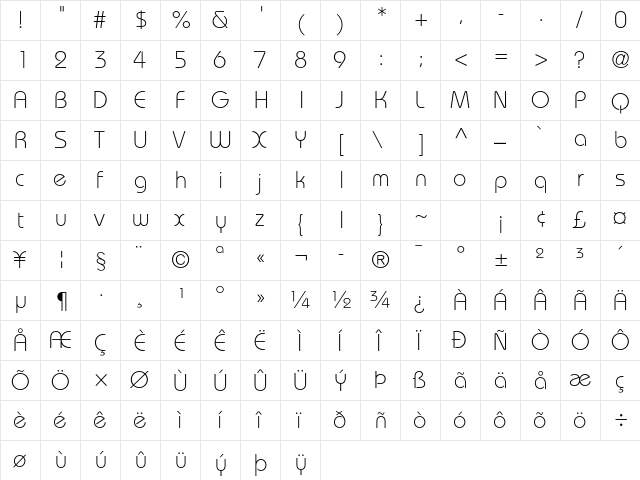
Bauhaus Std Light Font Preview
Bauhaus Std Light
Bauhaus Std Light Font Details
| Designer | Ed Benguiat, Vic Caruso |
Design Context for Bauhaus Std Typeface
Bauhaus Std offers clean, dependable letterforms without strong stylistic allegiance, making it a practical choice for designers who need flexibility. Its slender proportions lend an understated elegance to any composition.